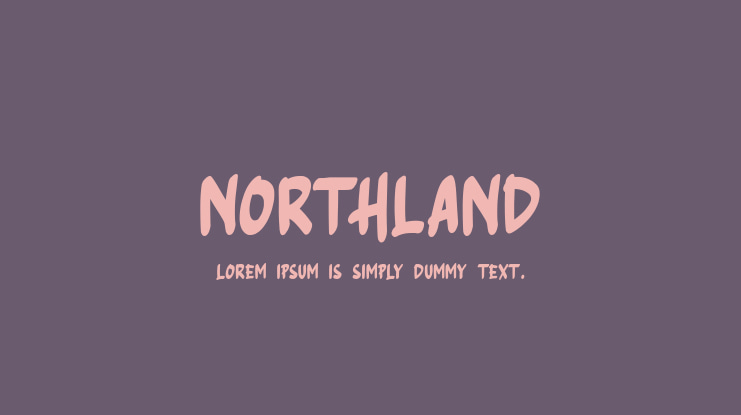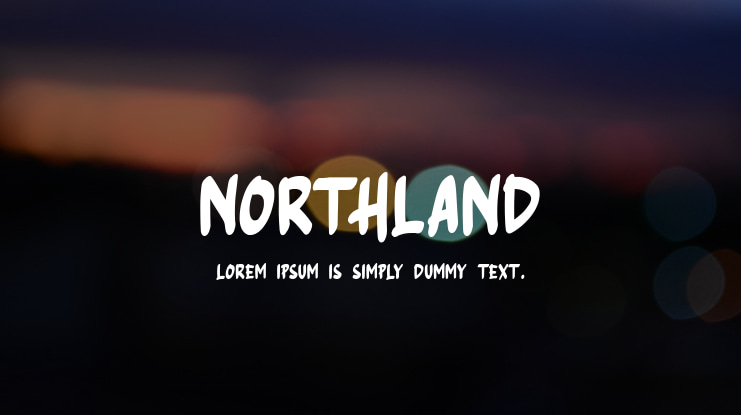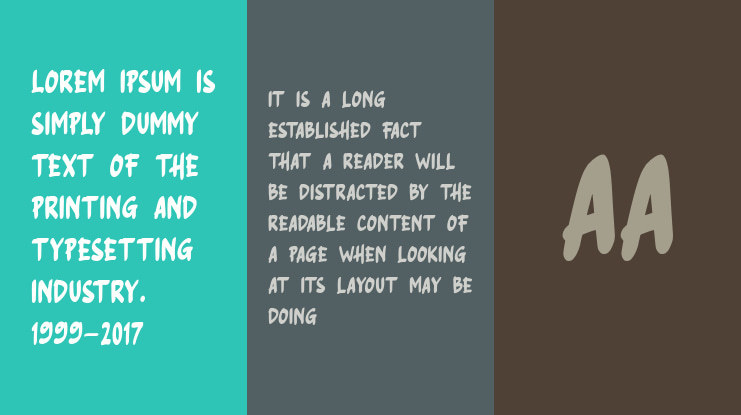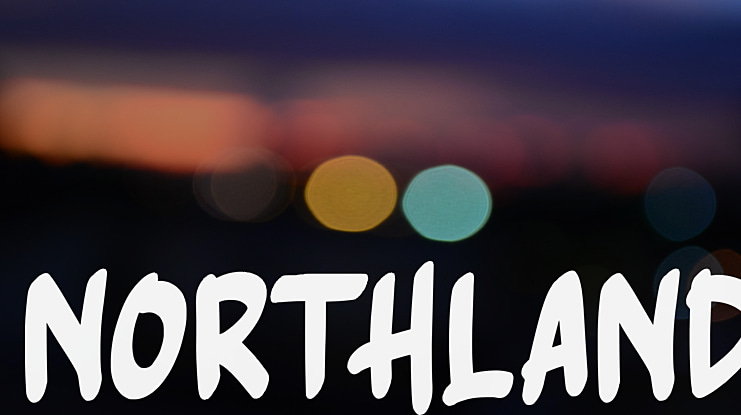
NORTHLAND Font
NORTHLAND was designed to make logotype and lettering for your brands.
And it's would perfect for t-shirt/ apparel, promotional materials, sports, music festival, quotes, special events or anything .